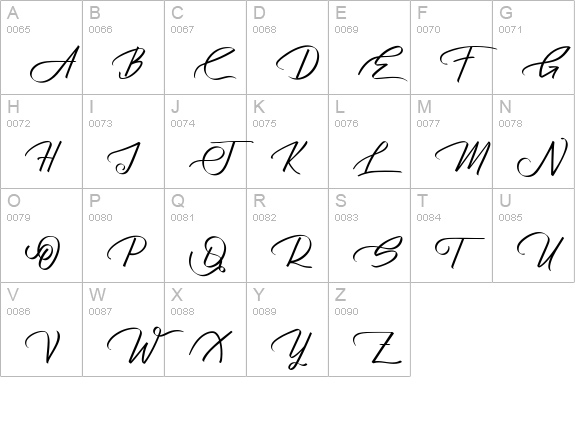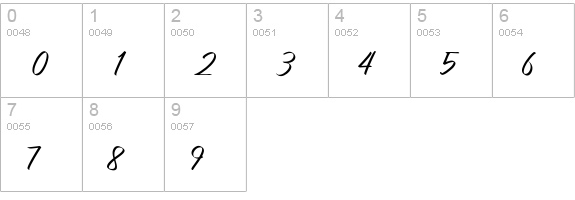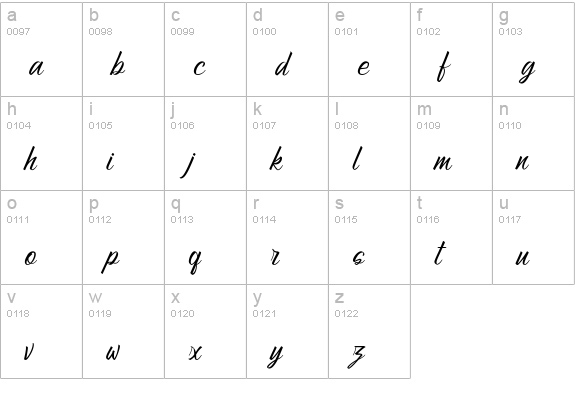
AthumThin is a free for personal use font in the Script > Calligraphy category, designed by masterpiece_art. It has been downloaded 2,427 times and is available for Windows, Mac and Linux.
AthumThin font is a modern and elegant typeface that exudes sophistication and style. With its sleek lines and minimalistic design, this font is perfect for creating eye-catching headings, titles, and logos. The thin weight of the font adds a touch of delicacy and refinement to any design project.